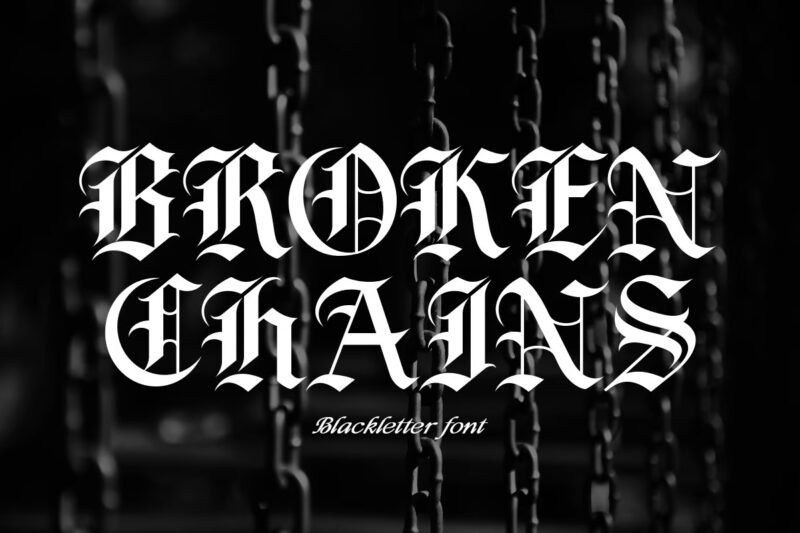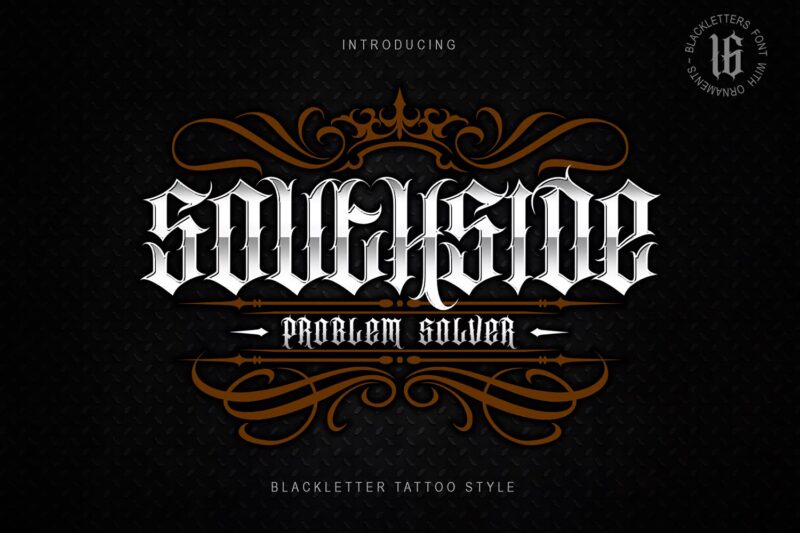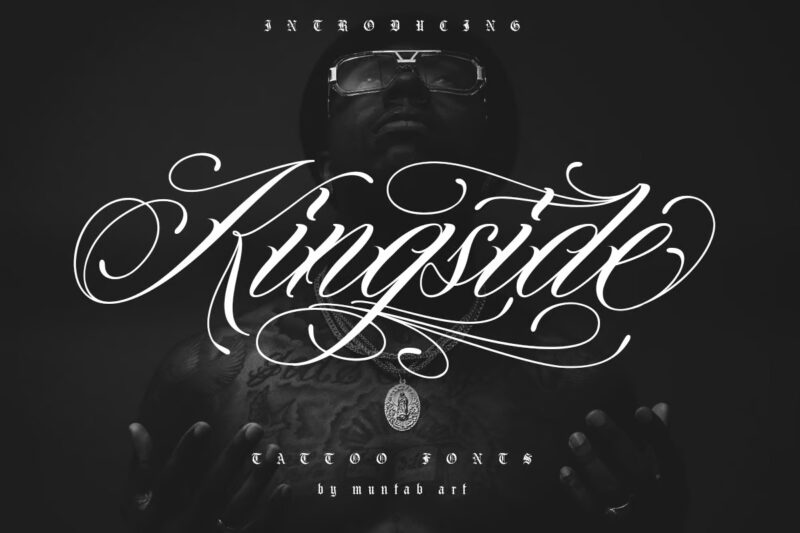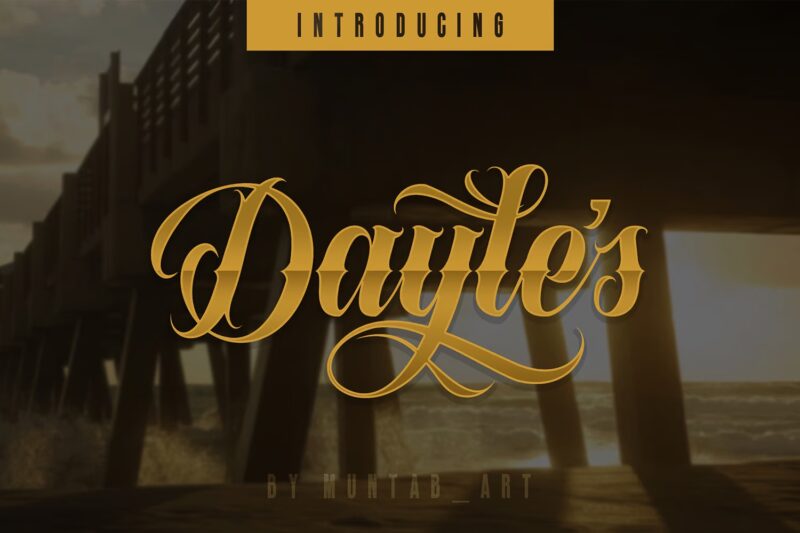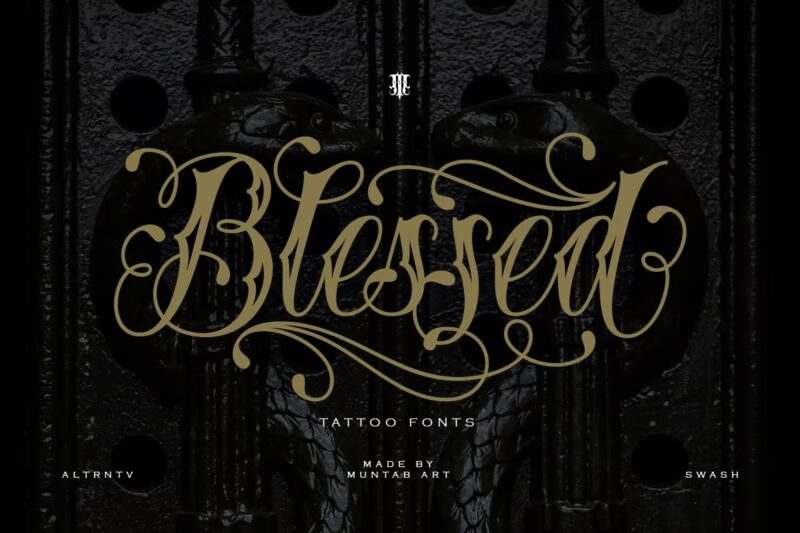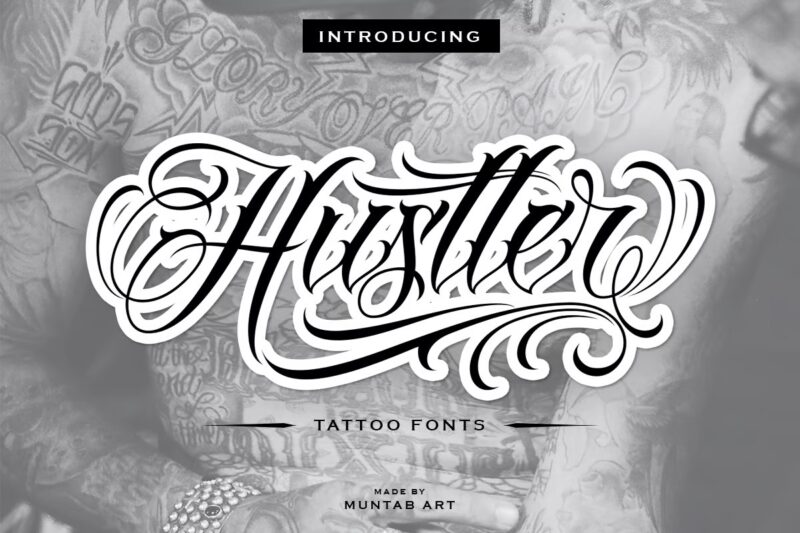
Transform your text into bold Chicano-style lettering with our free Chicano font generator! Perfect for creating authentic designs that honor the rich cultural heritage and artistic traditions of the Chicano community. Our tool features the iconic stylized lettering recognized throughout the Southwest and beyond. And if you can find more Chicano Fonts here.
Broken Chains
A bold blackletter with a rebellious twist. Broken Chains blends medieval grit with modern edge—perfect for album covers, headlines, or anything with attitude.
SOUTHSIDE
Southside has serious ink-on-skin energy. Inspired by tattoo lettering, it’s packed with personality—plus it comes with extra flourishes that feel handcrafted.
Night Life Modern Gothic
A sleek twist on Gothic type, Night Life feels at home on nightclub posters and cutting-edge branding. Sharp, dramatic, and memorable.
Kingside
Kingside is full of swagger. With dramatic swashes and vintage tattoo vibes, it’s made for statement pieces and bold identities.
Dayles Script Fonts
With its graceful curves and elegant swashes, Dayles Script is tailor-made for upscale branding and event materials like wedding suites and boutique logos.
Blessed
Blessed blends traditional tattoo lettering with timeless charm. Crisp lines and character-rich forms make it great for apparel, signage, and bold branding.
Hustler
Bold and confident, Hustler feels straight off a back alley mural. Gritty yet polished—perfect for headlines and merch.